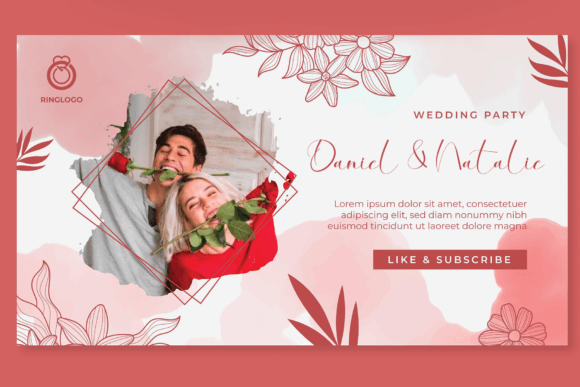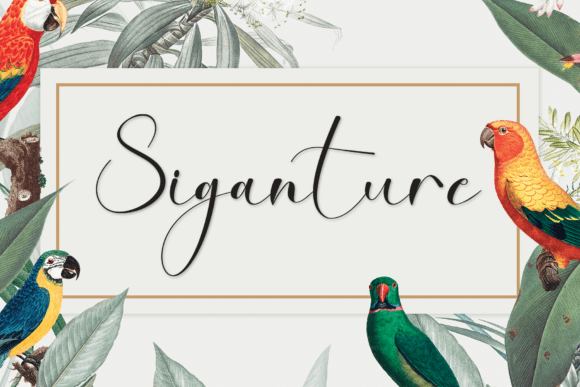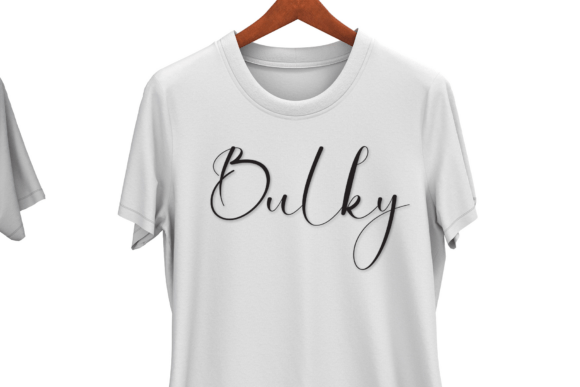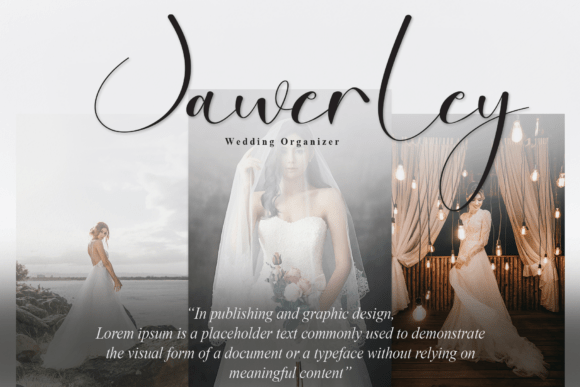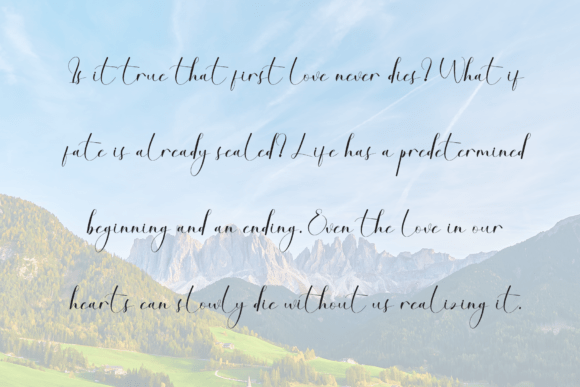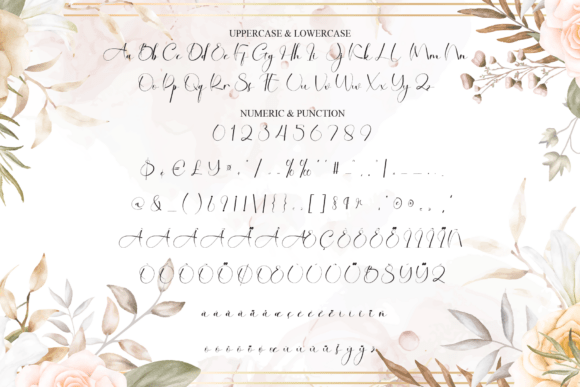
The Groovy Font: Elevate Your Design with Modern Calligraphy
Have you ever been in the middle of a design project, and suddenly, you’re stuck on finding the perfect font? I recall working on a romantic wedding invitation project, and my client requested a font that exuded elegance, sophistication, and a touch of handmade charm. After scouring through numerous font libraries, I stumbled upon the Groovy font, and it instantly became the perfect fit. In this article, we’ll dive into the world of Groovy, a modern calligraphy font that’s sure to elevate your designs.
A Personal Encounter with Groovy
As I began working with Groovy, I was immediately drawn to its stunning “new style” and rhythmic flow. The delicate monoline strokes and sophisticated loops made it an ideal choice for romantic wedding invitations, floral-themed branding, and personalized social media content. I was excited to explore its capabilities and share my experience with you.
An Honest Review of Groovy
What I Love About Groovy ✨
- 💫 Beautiful, rhythmic flow that’s perfect for creative projects
- ✅ Delicate monoline strokes that add a touch of elegance
- 🎨 Sophisticated loops that bring a sense of sophistication
- 📝 Versatile and suitable for various design applications, including wedding invitations, branding, and social media content
- ⚠️ Limited availability of certain OpenType features in some software
- 🤯 May require some experimentation to master the use of glyphs and stylistic alternates
- Experiment with the font’s OpenType features, such as ligatures and stylistic alternates, to add a personal touch
The Backstory of Groovy
Groovy was designed with the intention of creating a modern calligraphy font that embodies the essence of traditional elegance. The designer aimed to craft a font that would be versatile, elegant, and suitable for various design applications. With its delicate monoline strokes and sophisticated loops, Groovy has become a popular choice among designers and crafters.
Q: What is the best way to use Groovy for wedding invitations?
A: Groovy is perfect for wedding invitations due to its elegant and sophisticated feel. Use it as a primary font or combine it with other fonts for a unique look.
Q: Is Groovy suitable for digital designs?
A: Absolutely! Groovy can be used for digital designs, including social media content, website headers, and email marketing campaigns.